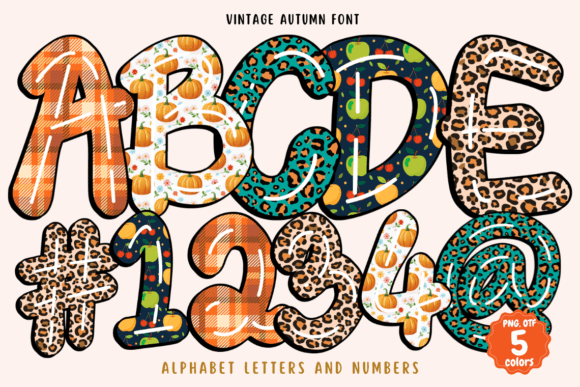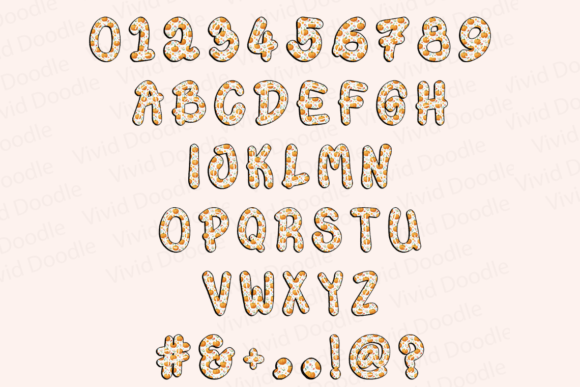
Vintage Autumn Font
Introducing the “Vintage Autumn” font—a refined blend of vintage aesthetics and autumnal warmth. This font is perfect for bringing a nostalgic feel to your autumn-themed projects, whether you’re designing for holidays, school events, posters, or creative art. Let “Vintage Autumn” infuse your work with the rich, cozy tones of the season, making your designs truly stand out.